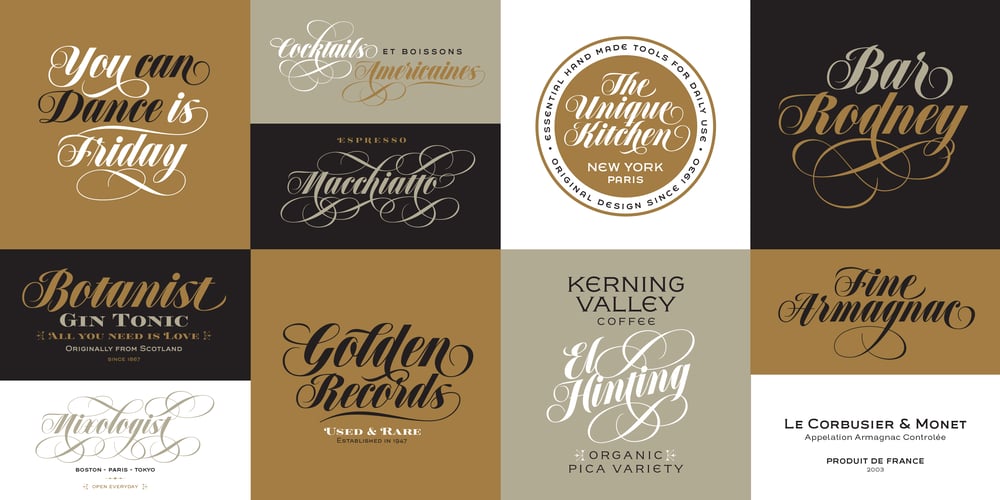
Speakeasy Font Family was designed by Alejandro Paul and published by Sudtipos. Speakeasy contains 5 styles and family package options. Speakeasy is a 5-font combo thematically built as a toolset for designing menus and liquor labels as well as coffees, restaurants and signs when the desire is to communicate with style. Originally put together to be used by the most famous speakeasy in Buenos Aires, this set contains a script, a minor (almost flat) wedge serif, a flare serif, a sans serif, and a bold Didone. The seed for the script was found in a German lettering book, and the other fonts reflect the familiar advertising and announcement styles of the early 20th century. The Speakeasy script comes with two different ways to connect the letterforms. Also included are many alternates, swashes, endings and flourishes — all accessible via OpenType features or glyph palettes. Speakeasy Modern and Speakeasy Flare are small cap fonts, and come with a few alternates. Speakeasy Sans and Speakeasy Gothic come with full sets of majuscules and minuscules, but contain small caps and a few alternates as well. A few rules and ornaments are also sprinkled throughout the set. This combination of fonts worked wonderfully for the project that called for it. Hopefully it will work just as well for your project.